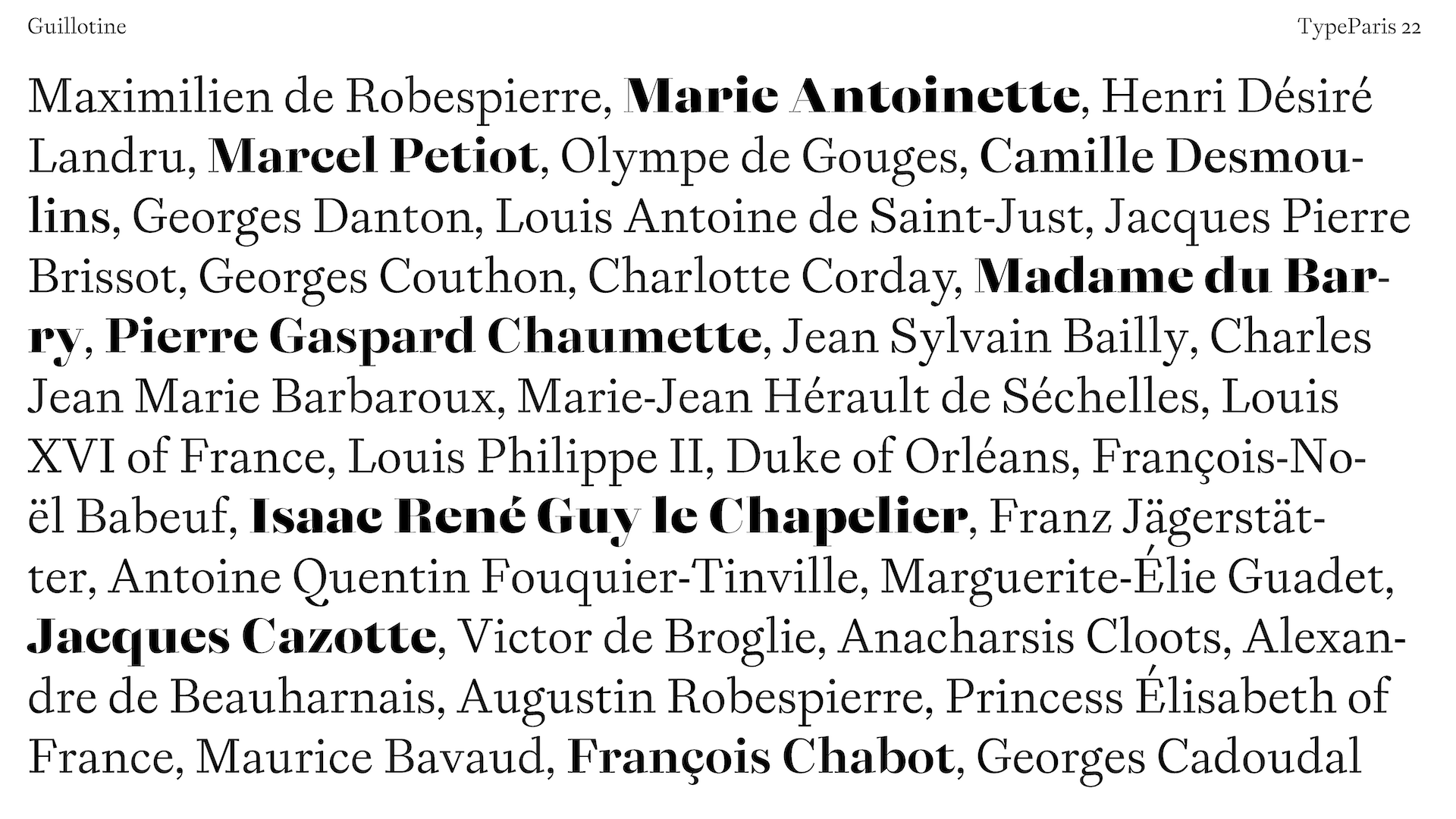
Guillotine
In the beginning of TypeParis we started with calligraphy, to understand the structure of the letters. Although I had some experience with calligraphy already, I learned so much more about it, I started feeling quite comfortable with the alphabet that we were practicing during the first week -and later on tracing paper. I was pretty sure to use my drawings of the first week to start with my type project and expand it to a type family.
As TypeParis included also numerous of library visits, we had the opportunity to see a lot of printed books from the 15th to 19th century and a large bandwidth of old typefaces. Especially some Didot Typefaces printed in small sizes catch my eye.  I was quite fascinated by the overall aesthetics; especially in small sizes which the letters looked very sharp, compared to other typefaces that were produced at that period. I thought of doing revival, based on the Didot typeface.
But since there are many revivals of Didot, it didn’t make sense to do another revival. So regarding that, referencing William Morris’ »Golden Type«,-which was a clear statement against the Didone Typeface- I had the idea to give my brief a little twist.
The goal was to create a sharp looking typeface (like the ones we saw in the specimens from Mazarin Library) and keeping the certain characteristics that were mentioned in «Golden Type» and «Didot».
The regular weight became, a transitional which worked well in body text; whereas the letterforms had some limits for heavy display weight. So it was a better idea to draw a Didot Black Display and interpolate between those two weights.
The name Guillotine references the overall sharpness of the Typeface and especially the shape of the serifs and also the «cut off» ball terminals.